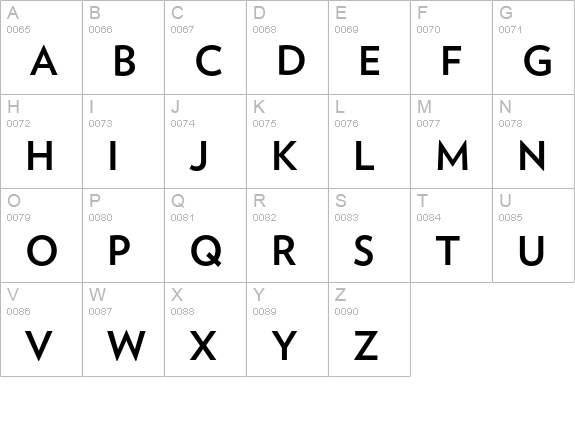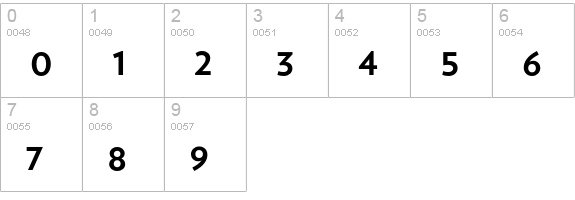
Verlag Bold is a strong, high-contrast variant in the Verlag typeface family \xE2\x80\x94 well suited to headlines, attention-grabbing titles, and strong calls-to-action.
Verlag Bold is a striking and versatile font that exudes a sense of modernity and sophistication. Its bold and clean lines make it perfect for headlines, titles, and branding materials. The strong presence of Verlag Bold commands attention while maintaining a sense of elegance. What makes Verlag Bold even more appealing is that it is available for free download at FontsMarket.com. Now, you can effortlessly enhance your design projects with this stylish and impactful font without any cost. Whether you're working on a website, advertisement, or editorial layout, Verlag Bold is sure to make a powerful statement. Download it today and elevate your designs with this exceptional typeface.